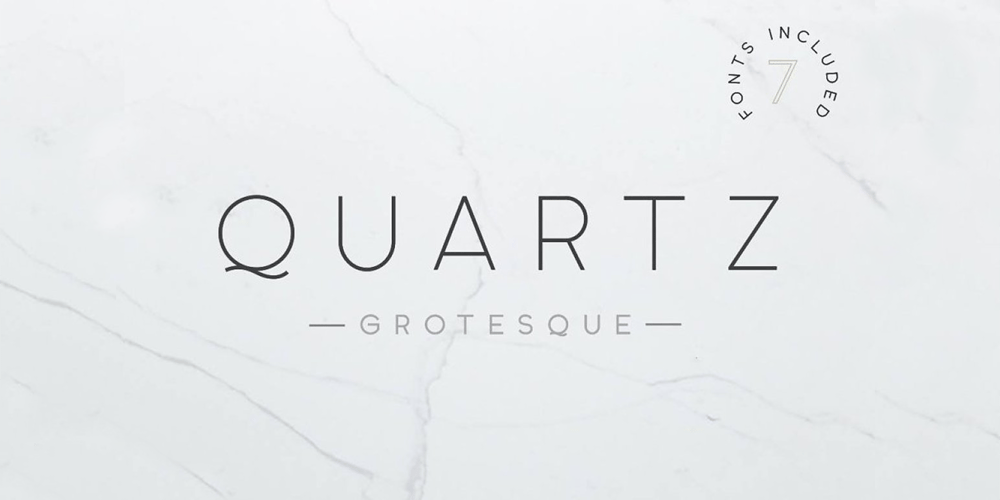
Quartz Grotesque Font Family was designed by Jeremy Vessey and published by Hustle Supply Co. Quartz Grotesque contains 7 styles and family package options. Quartz was originally published on the shop Font Forestry, but they are planning on closing – So now Quartz will live on Hustle Supply Co.Quartz is a minimalist All-Caps Sans Serif typeface that comes in 7 different weights. It’s perfect for projects looking for that minimalist / clean aesthetic. Quartz includes regular, oblique, thin, bold & outlined versions. Western European Characters are included.Thanks!